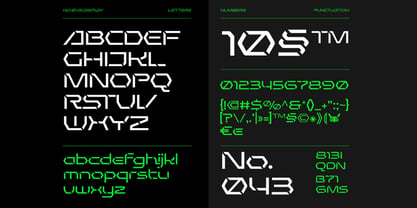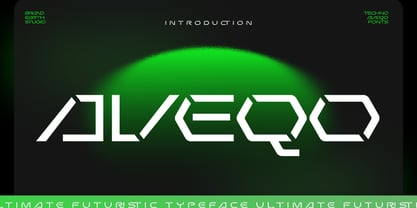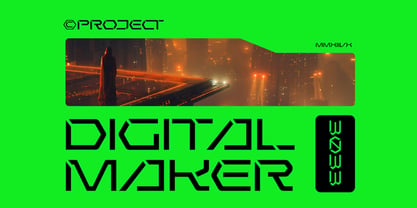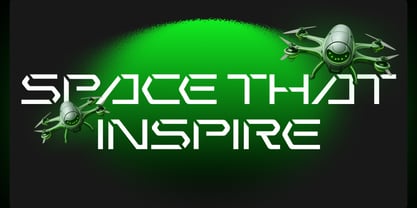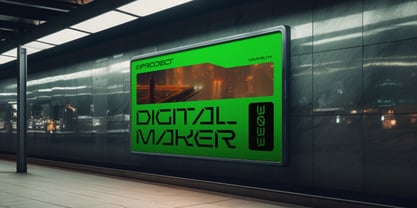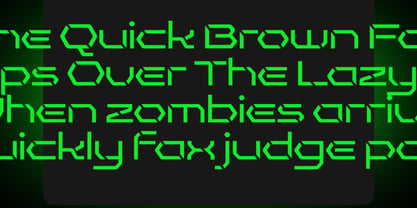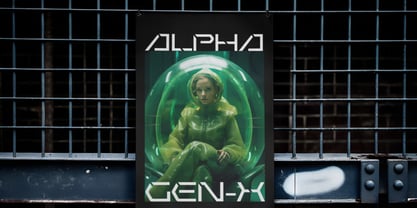
Aveqo
by Brandearth
Aveqo is a bold futuristic display typeface inspired by advanced technology, cyber aesthetics, and sci-fi interfaces. Designed with sharp geometric cuts, angular strokes, and modular letter construction, this font delivers a powerful high-tech identity. The clean yet unconventional forms create a strong digital presence, making it ideal for forward-thinking and innovation-driven branding. Aiveqo is highly relevant for cutting-edge and technology-focused design projects. Perfect for gaming brands, esports teams, tech startups, AI platforms, blockchain projects, futuristic posters, cyberpunk visuals, UI dashboards, NFT branding, and digital event promotions. Its sharp geometry and glowing techno aesthetic make it ideal for projects that demand a bold, high-impact, and forward-looking identity.